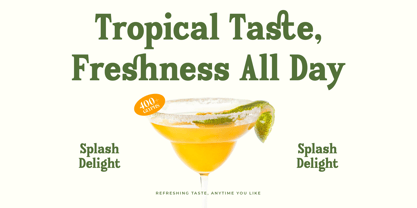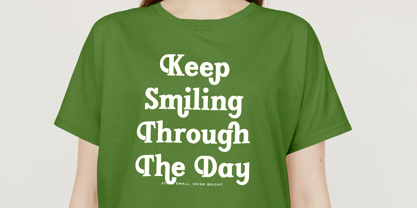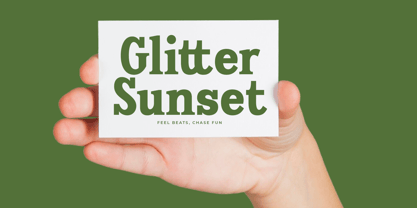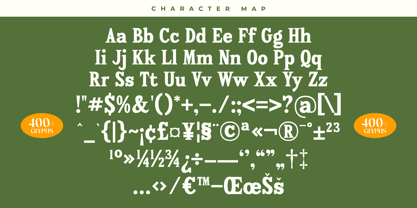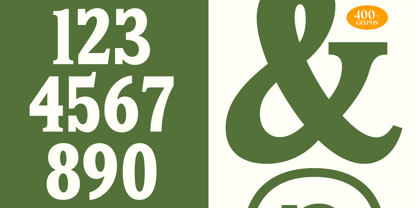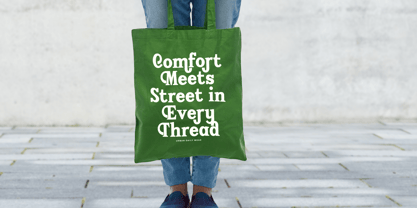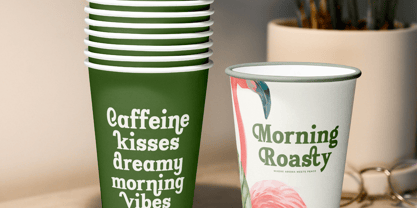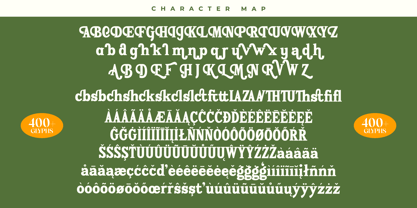
Island Boyage
by Timelesstype Studio
The Island Boyage Font Family was designed by Heru Utama Putra and published by Timelesstype Studio. Island Boyage contains 2 styles and family package options. More about this family
Island Boyage - Modern Serif Display , from Timelesstype, Suitable for any projects such as: logos, branding projects, homeware designs, product packaging, mugs, quotes, posters, shopping bags, t-shirts, book covers, name card, invitation cards, greeting cards, label, photography, watermark, special events, and all your other luxury and beautiful projects that need a Luxury Serif taste.
Island Boyage